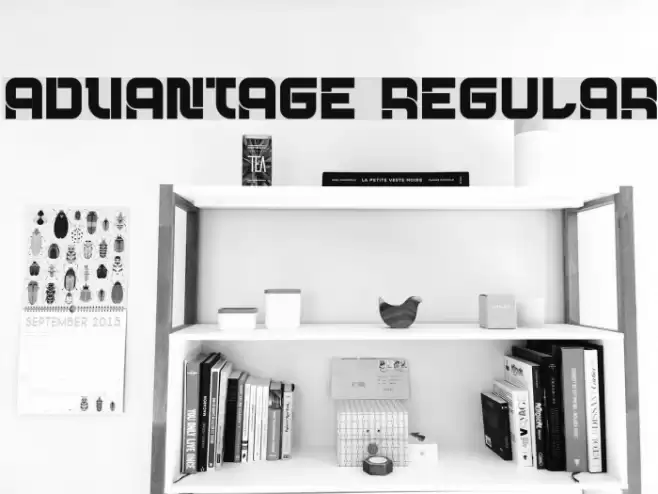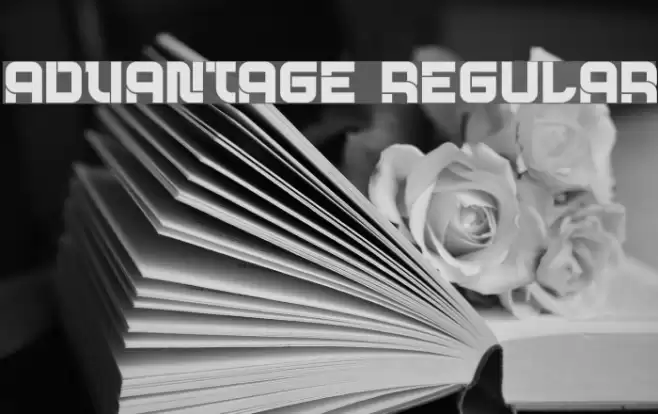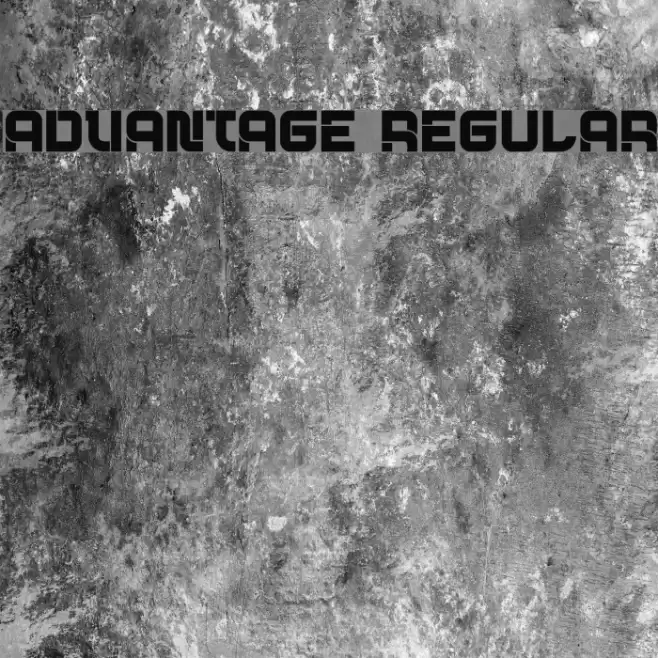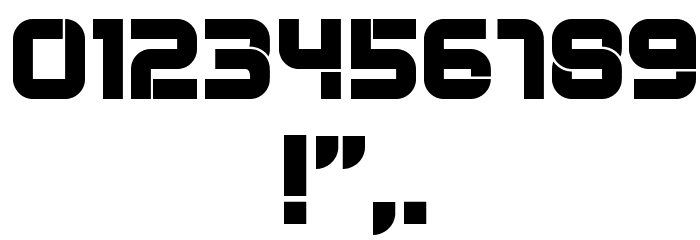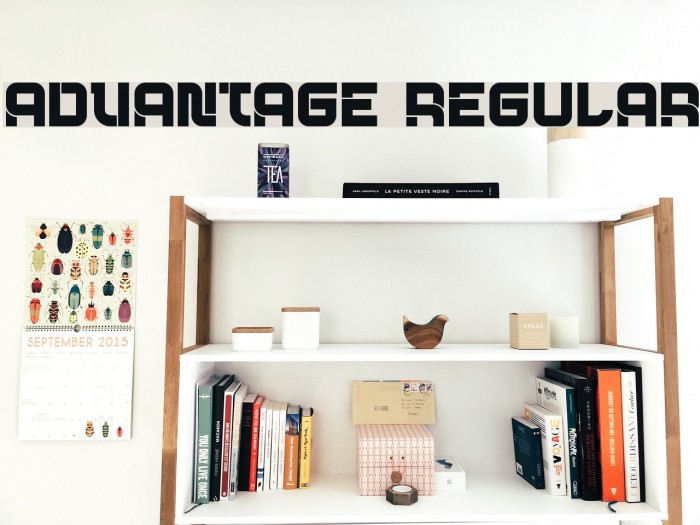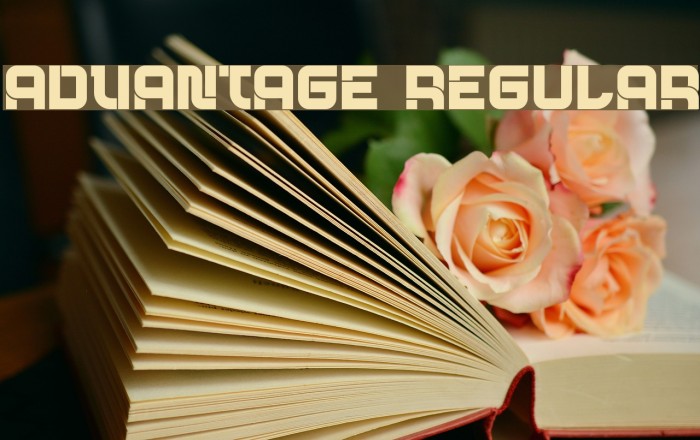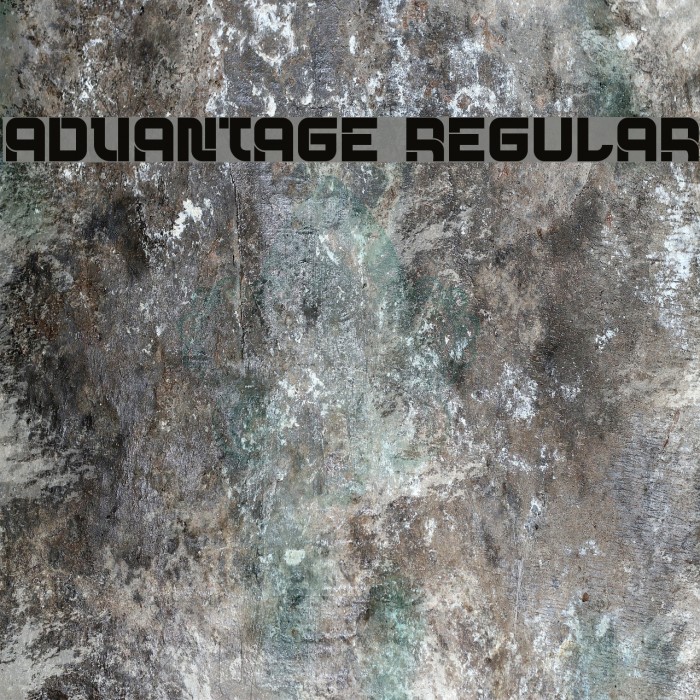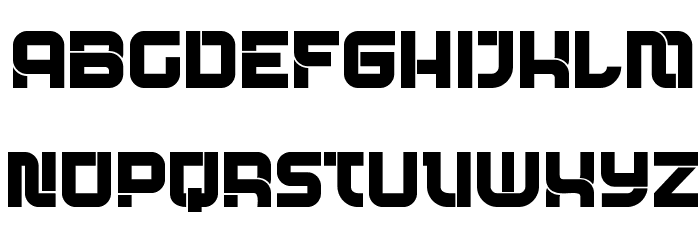
Advantage Regular Font
Advantage Regular Description
This font features a bold and geometric style with a futuristic flair. Each character is crafted with a blocky, angular design, giving it a strong and impactful presence. The uppercase and lowercase letters maintain a consistent width, contributing to a uniform appearance. The numbers and special characters follow the same design principles, ensuring cohesion across all elements. The font's unique cuts and angles add a modern, tech-inspired aesthetic, making it ideal for projects that require a contemporary and bold look.
A bold, geometric font with a futuristic and tech-inspired design from Uncategorized fonts.
- Proposed Projects: Ideal for technology branding, video game titles, sci-fi book covers, and modern advertising campaigns.